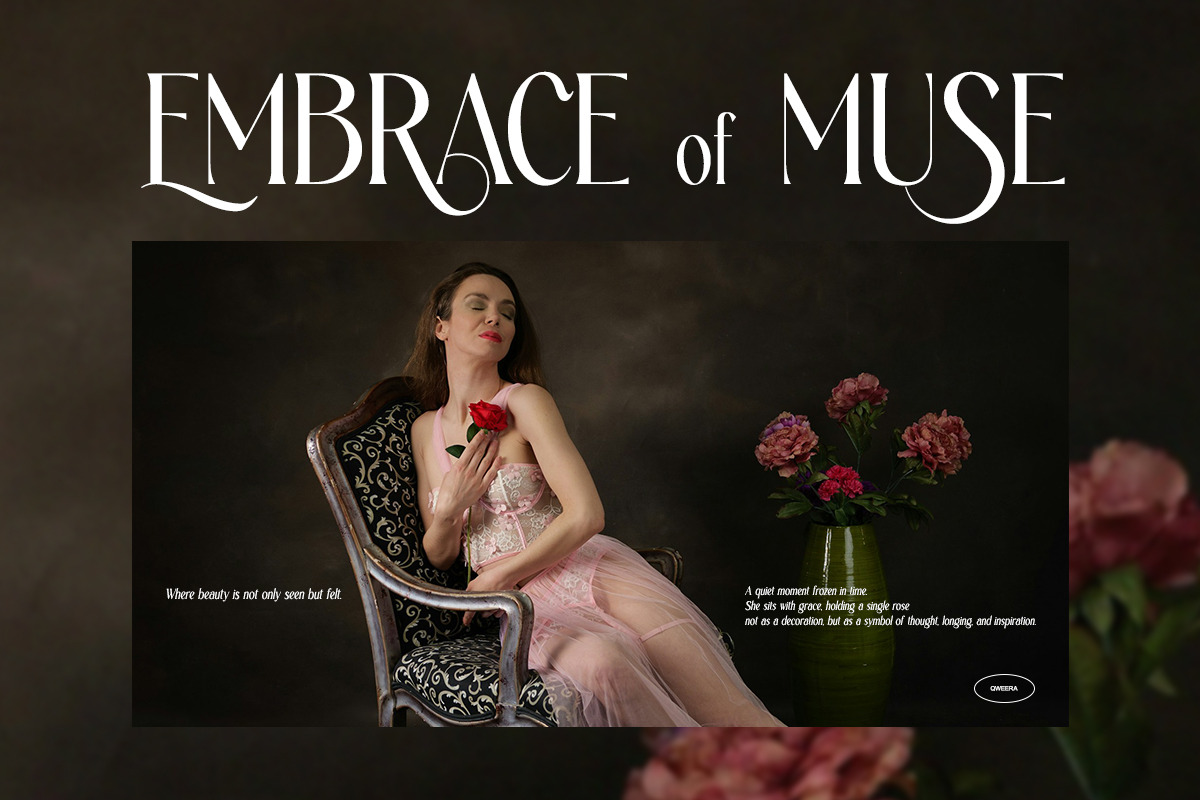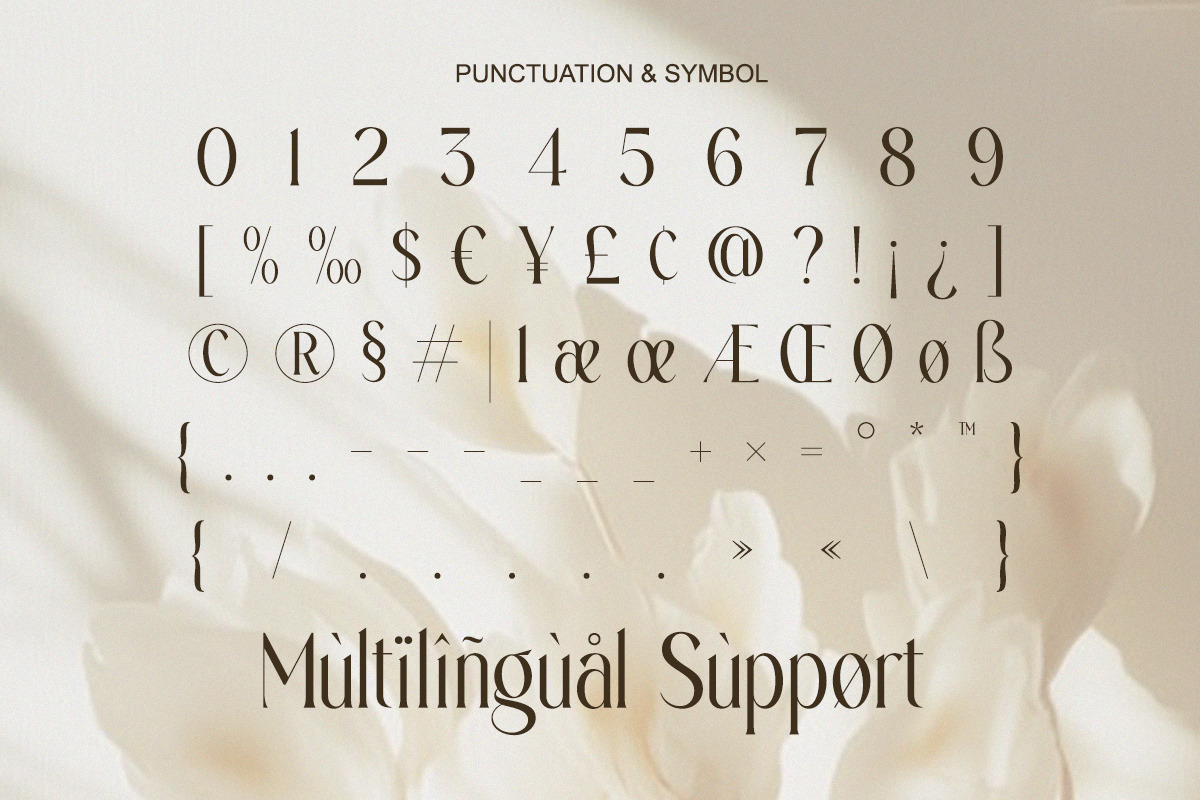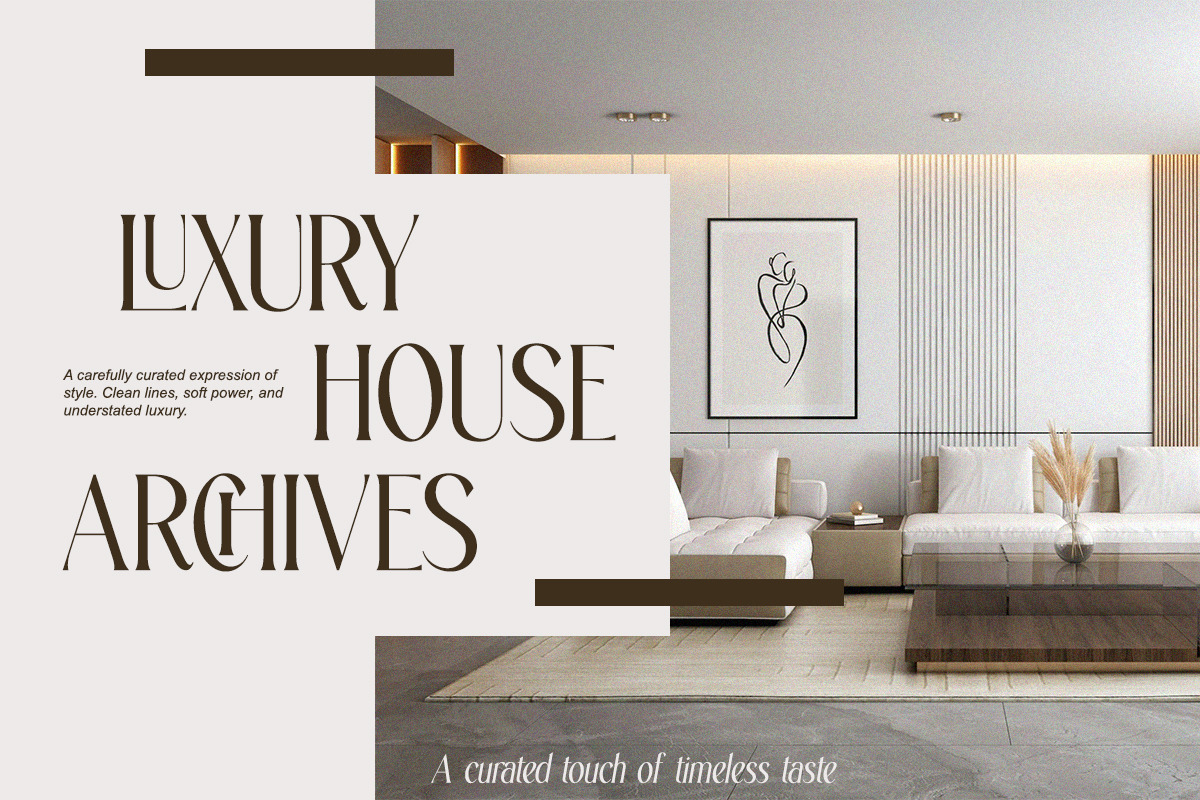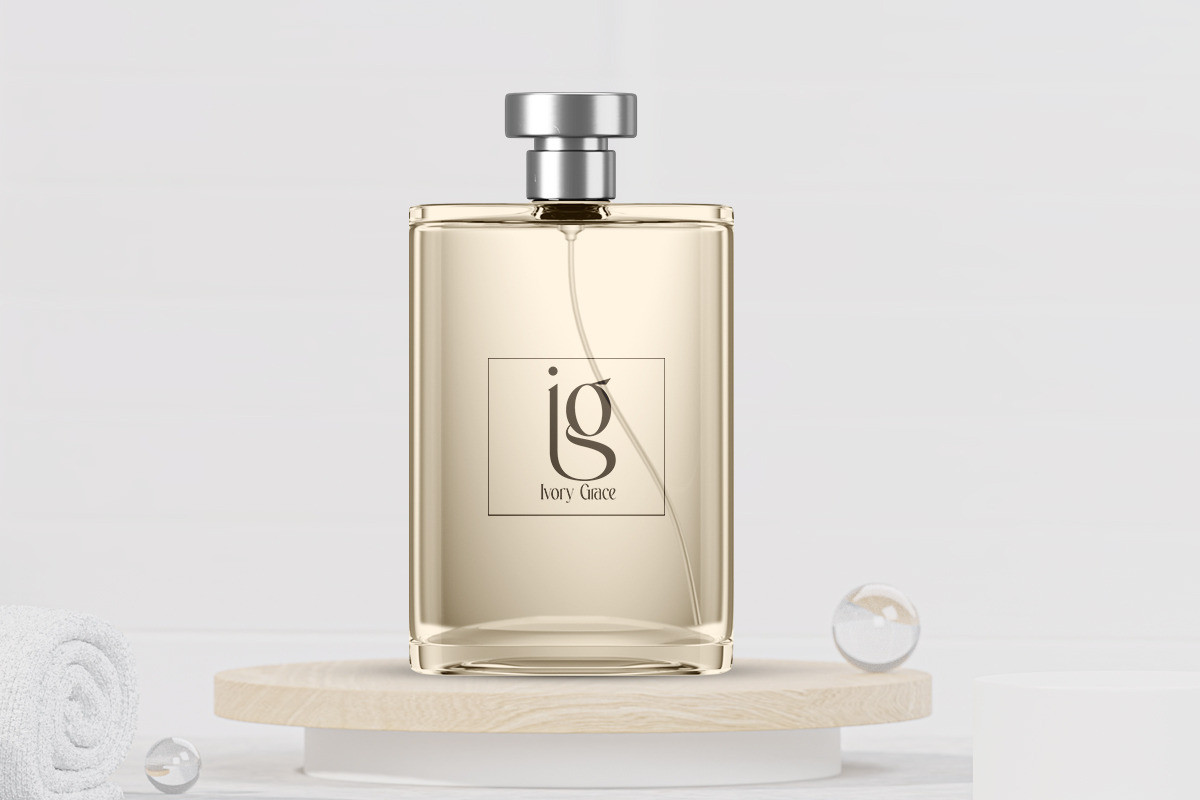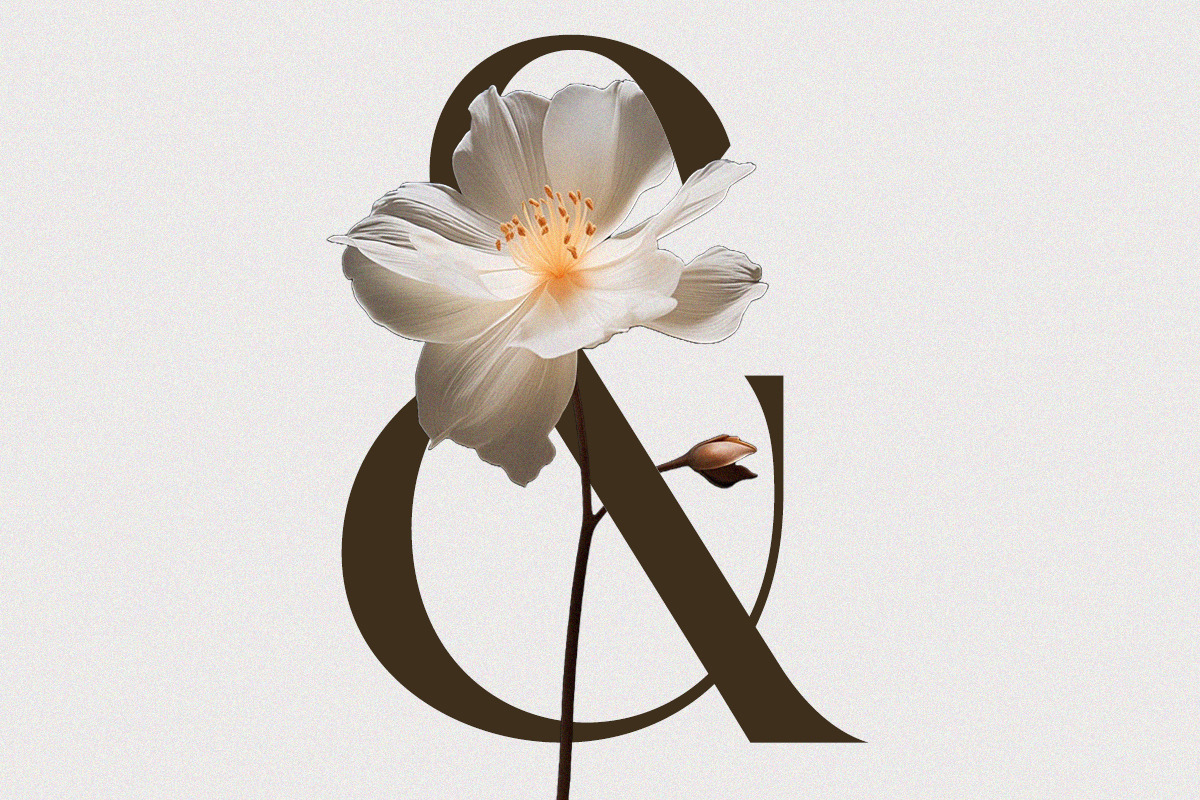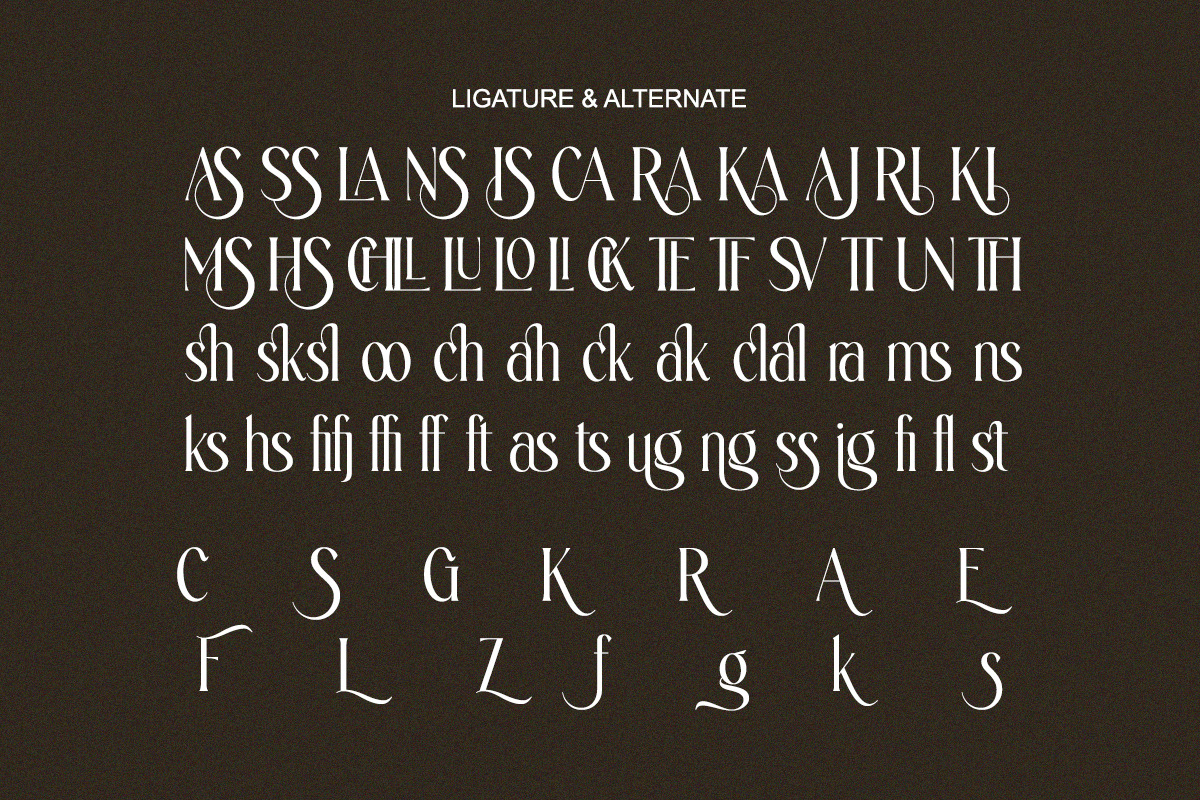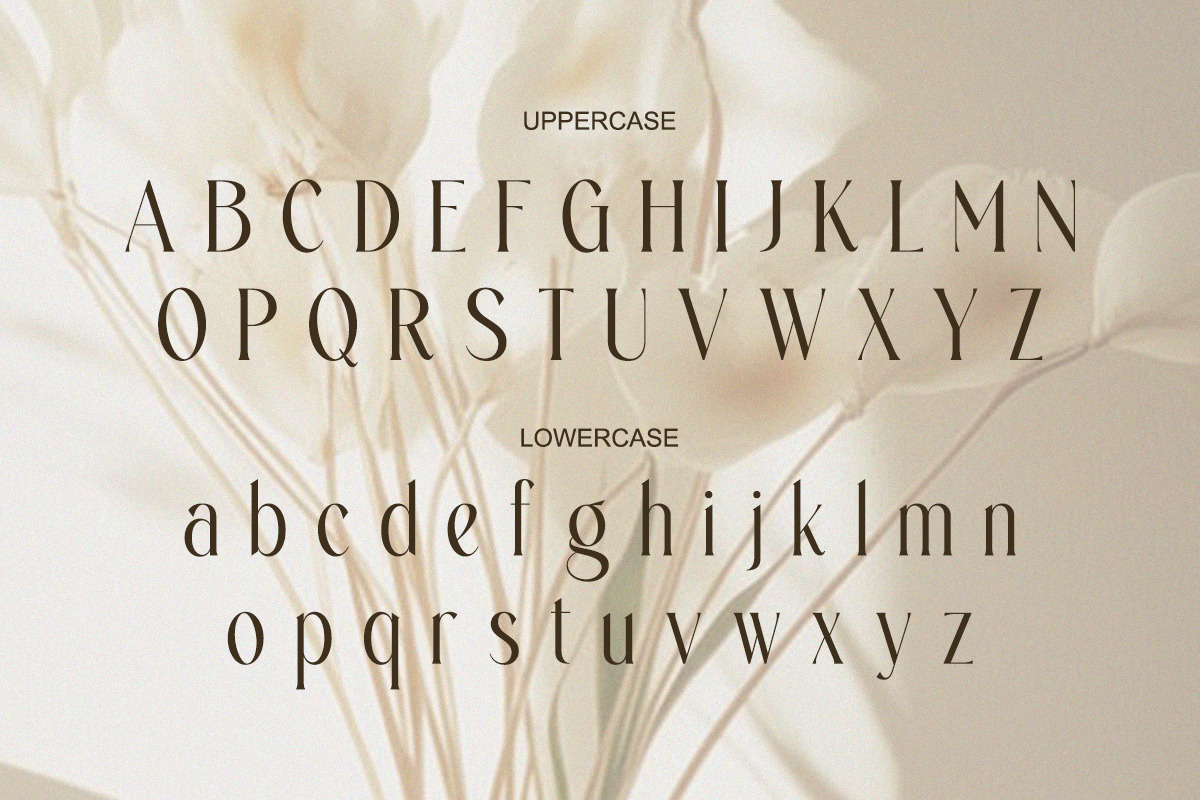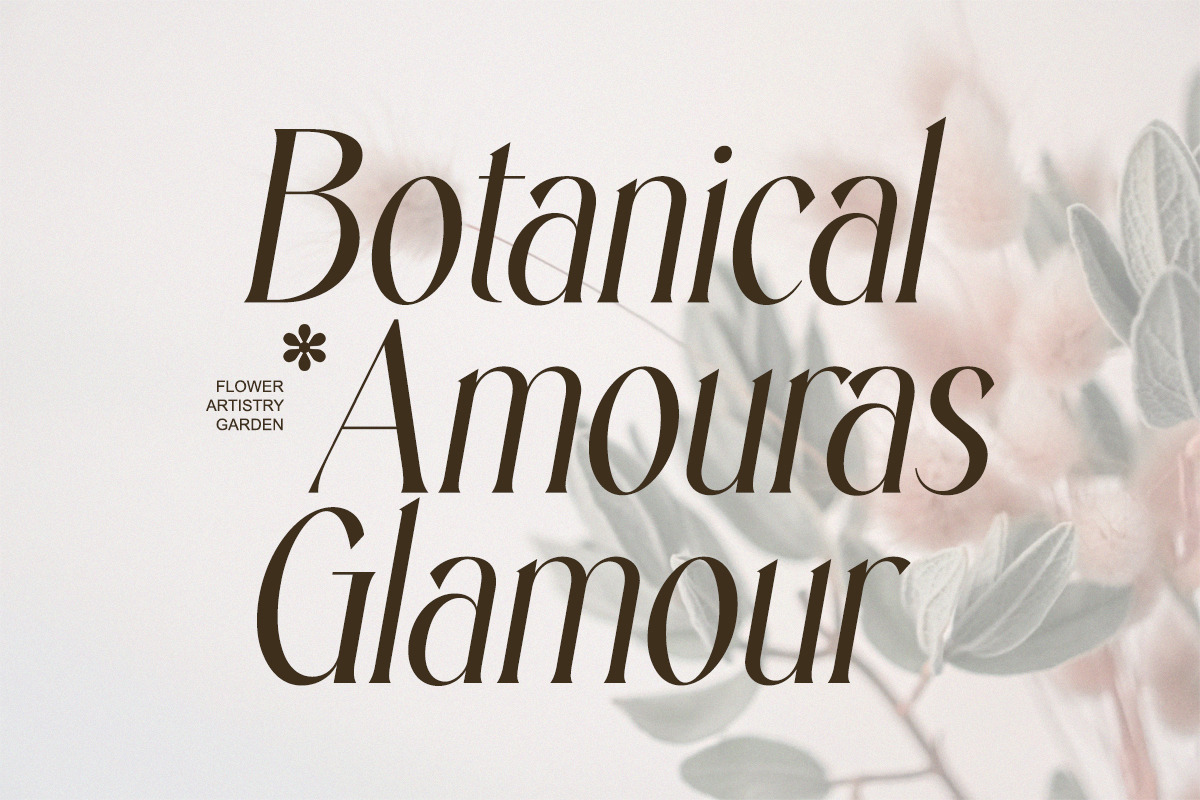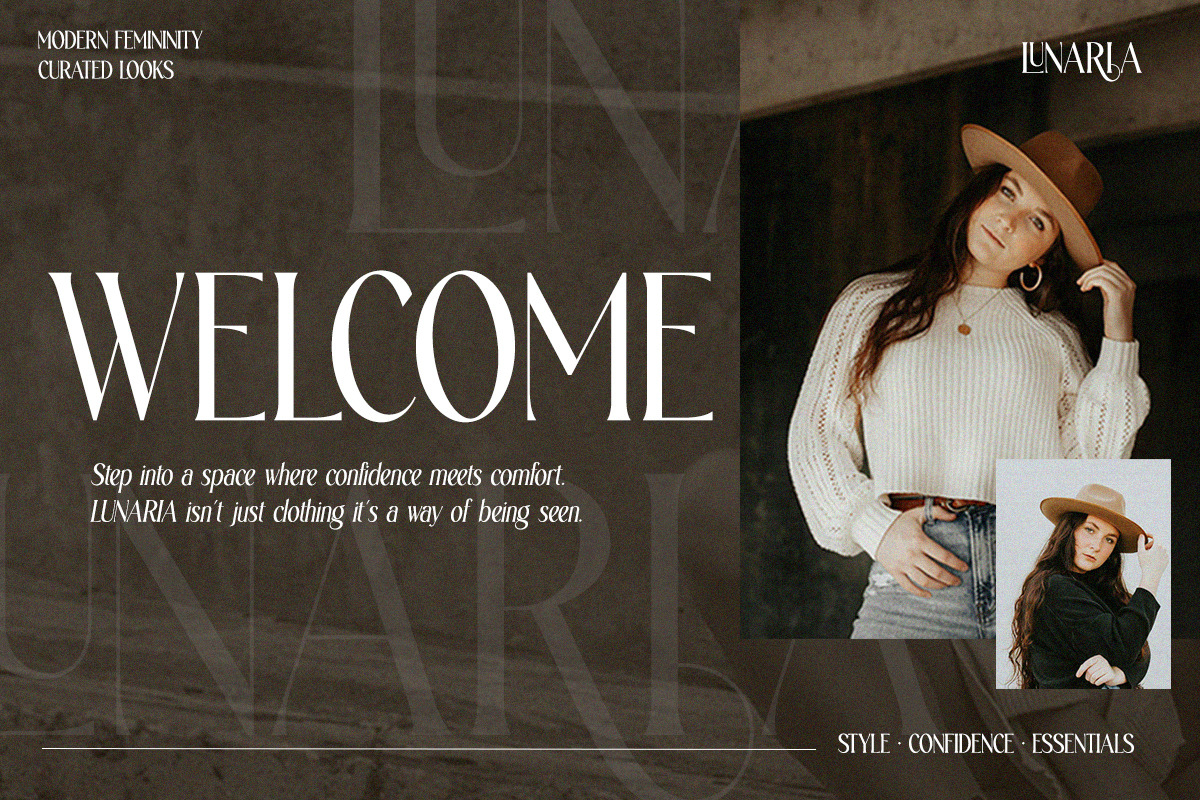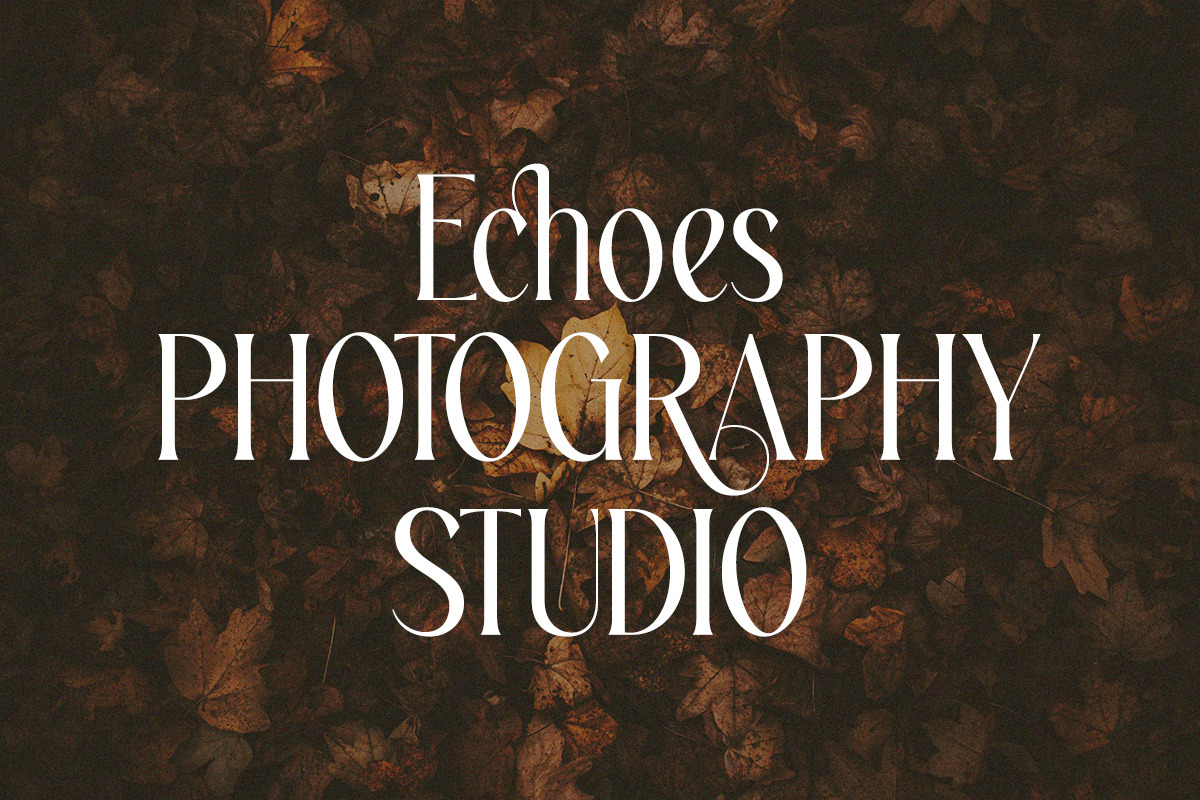
Ajessira – Modern Elegant Ligature
Ajessira is a luxury serif font designed with refined ligatures and elegant curves, making it the perfect choice for high-end branding and timeless design projects.
With its sophisticated shapes and artistic details, Ajessira adds a modern touch of exclusivity to logos, packaging, magazines, and wedding invitations. This font blends the essence of luxury with modern design trends, ensuring your projects stand out with unmatched elegance.
- Elegant serif with unique ligatures
- Regular & Italic
- Luxury modern aesthetic
- Uppercase & lowercase characters
- Luxury branding & fashion logos
- Editorial & magazine design
- Premium packaging & product labels
- Wedding invitations & stationery
- Creative advertising & posters
- High-end identity projects